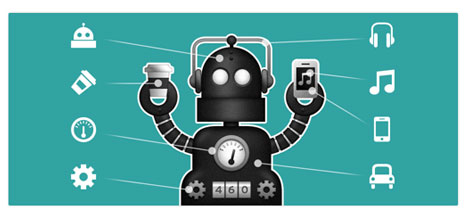
Create icons by Typing with Symbolset Fonts
When you need to add some common icons to text, what do you do? Do you open a clip art library…and search for the right icon? Or maybe switch to a dingbat font…and search for the right icon? Wouldn’t it be cool if you could stop wasting time with all that searching and just type words like “check” and “twitter” and have the text magically transform into a checkmark and the twitter icon?
Well you can do exactly that and more with the Symbolset fonts by Oak Studios.
Symbolset fonts use the same on-the-fly character substitution technique as Travis Kochel’s Chartwell font. So as soon as you type the t in “alert” the letters are all replaced by an alert icon.
You can get a feel for the way it works, by typing some of the sample terms on the Symbolset.com home page.
Other benefits of the symbolset fonts include scalability and acessibility (screen readers and search engines see the actual words instead of the icons).